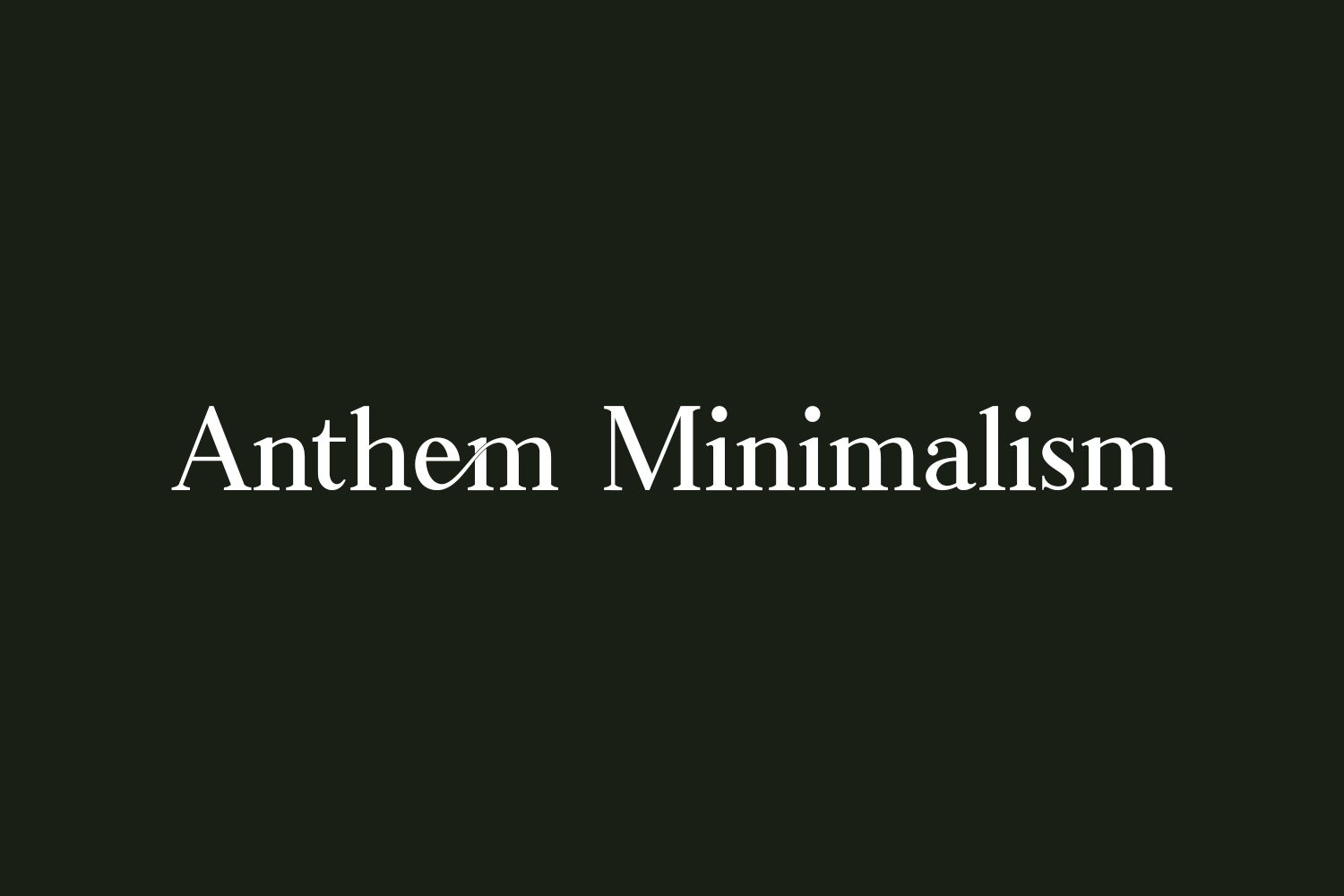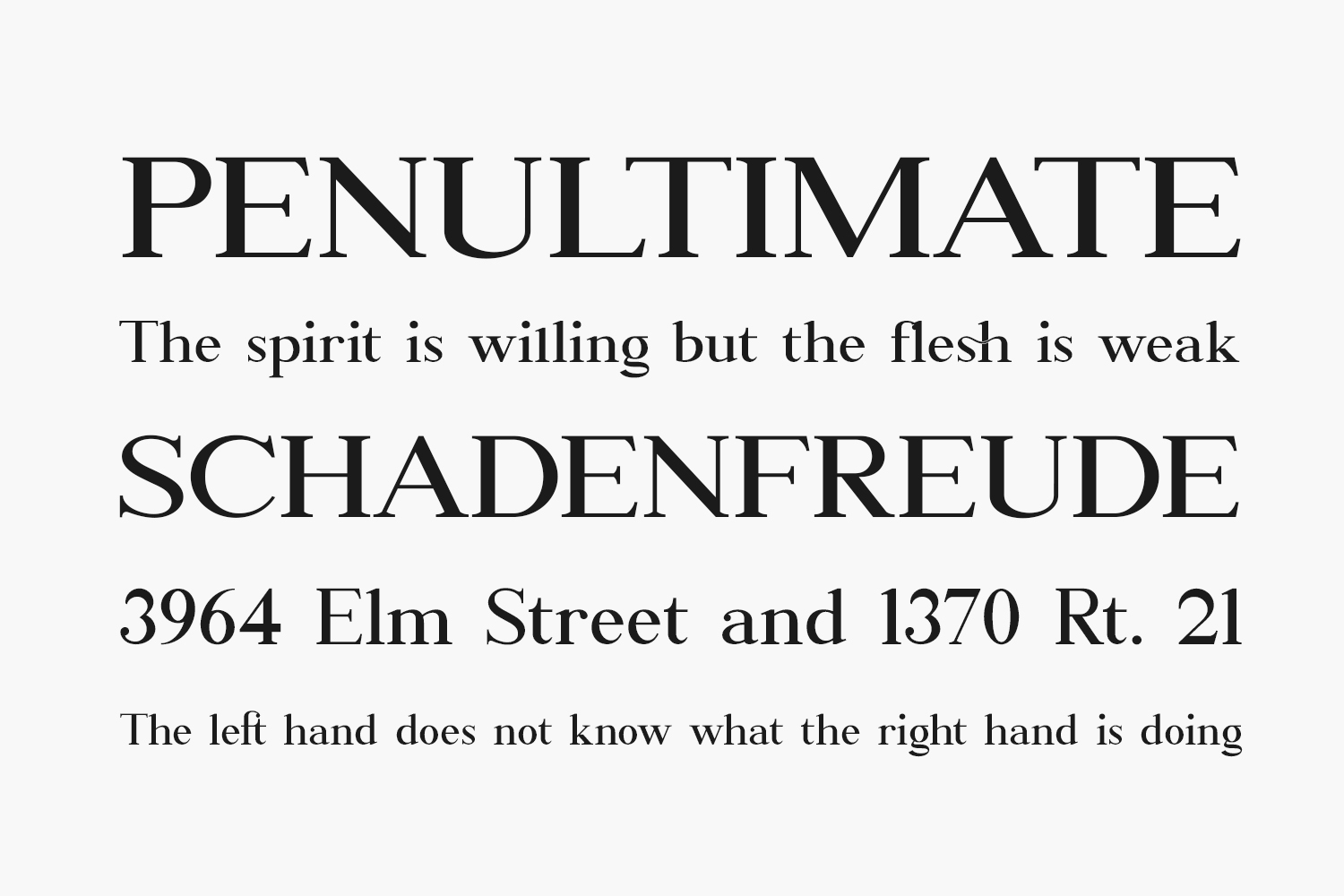
Explore the elegance of the Anthem Minimalism Free Font, a delightful combination of serif and script styles. Elevate the visual appeal of wedding invitations, thank you cards, quotes, greeting cards, logos, business cards, and any design that calls for a personalized touch. Download the font for free if you need it for personal use or purchase the full version for commercial use.